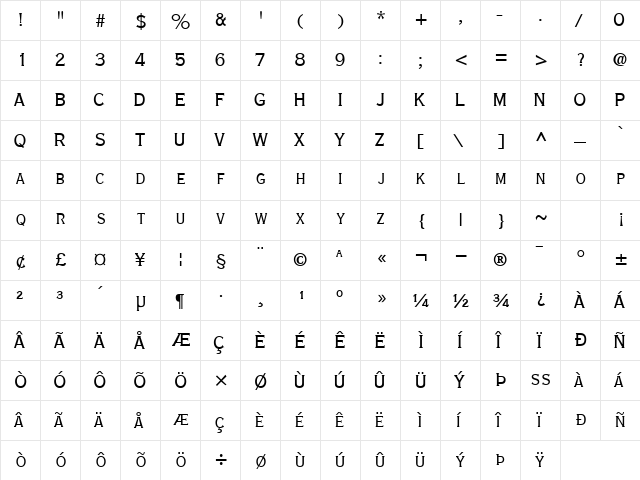
CopperplateExtraCondSCapsSSK Regular Font Preview
CopperplateExtraCondSCapsSSK Regular
CopperplateExtraCondSCapsSSK Regular Font Details
Design Context for CopperplateExtraCondSCapsSSK Typeface
CopperplateExtraCondSCapsSSK offers clean, dependable letterforms without strong stylistic allegiance, making it a practical choice for designers who need flexibility. The condensed width makes it efficient for tight spaces without sacrificing legibility.